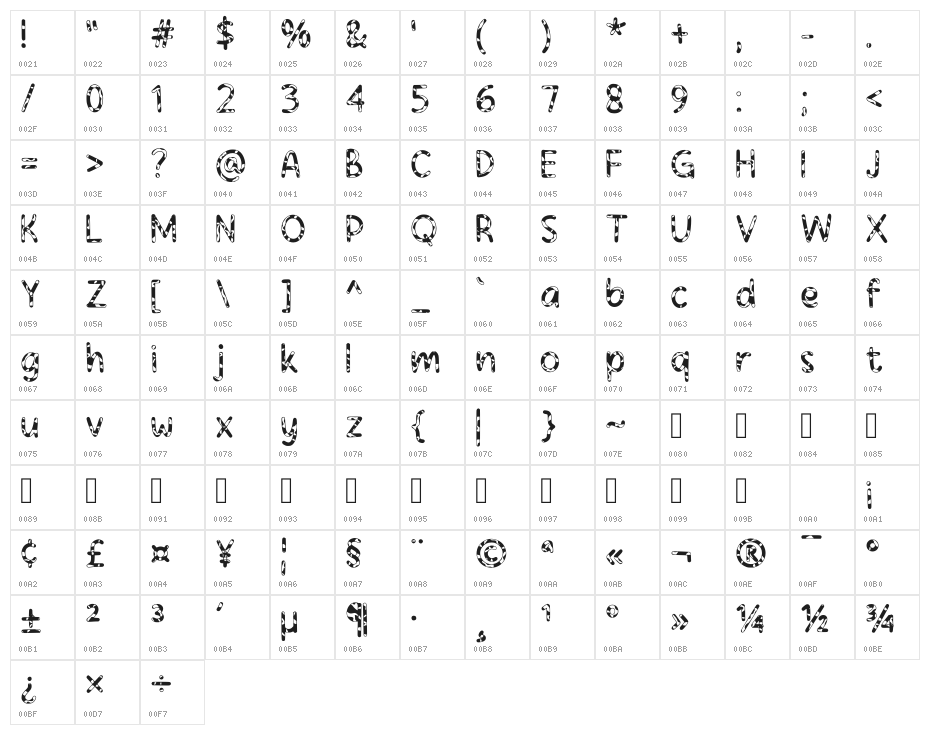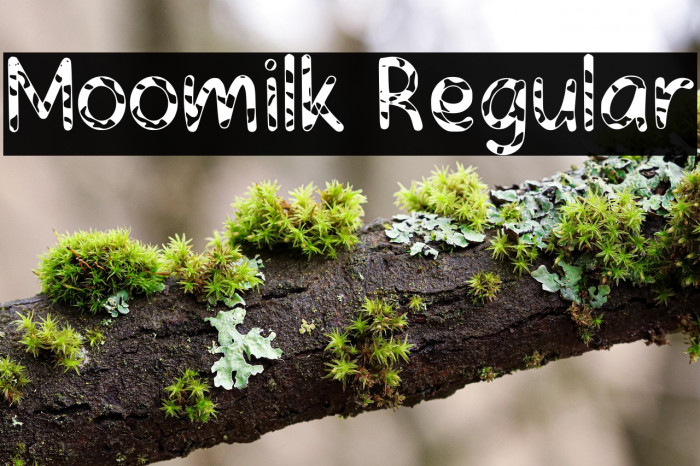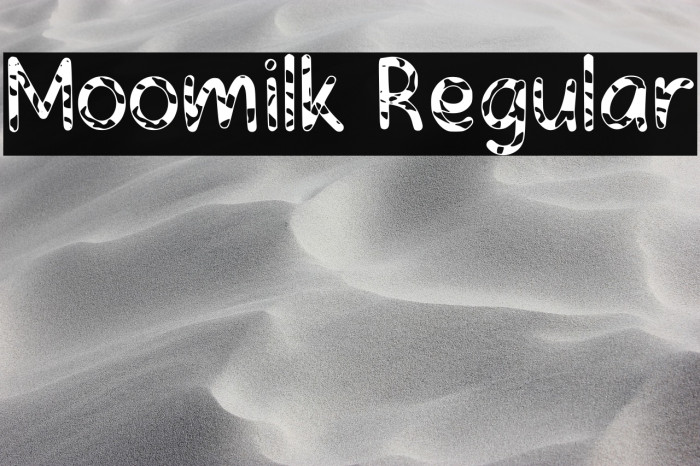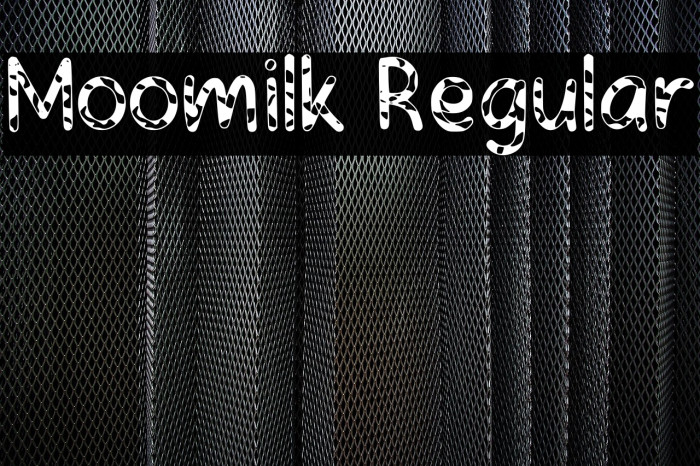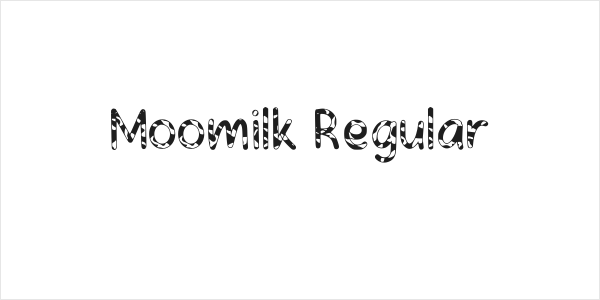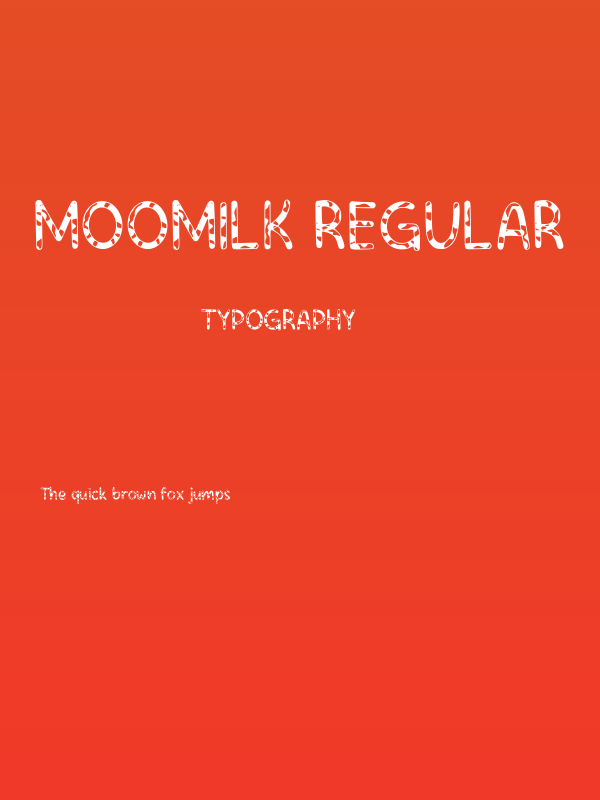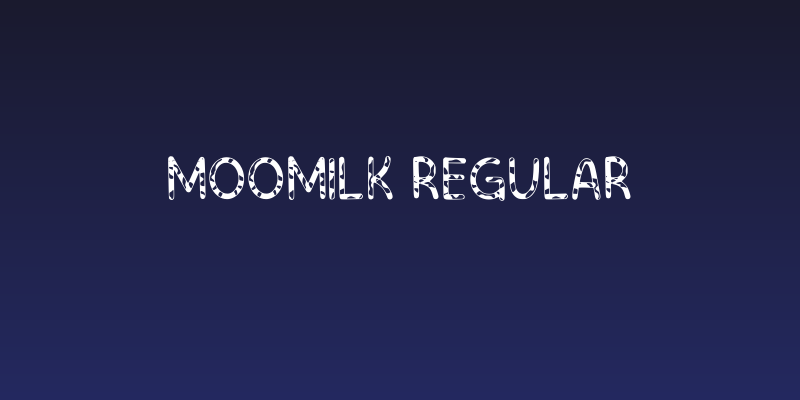
Moomilk Regular Font
Moomilk Regular Description
This playful and whimsical font features a unique pattern within each character, reminiscent of cow spots. The letters are rounded and bold, giving a friendly and approachable feel. The design is consistent across uppercase, lowercase, numbers, and special characters, maintaining the playful theme throughout. The font's distinct style makes it ideal for projects that require a fun and engaging aesthetic. Its bold appearance ensures readability while adding a touch of creativity.